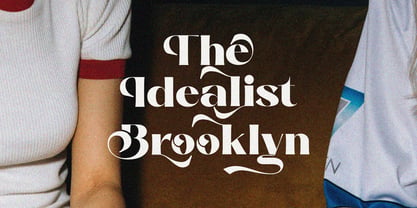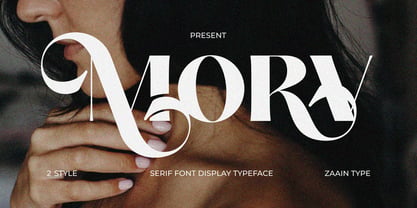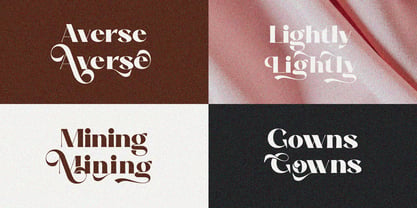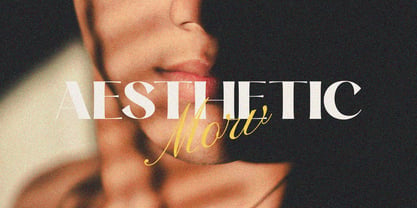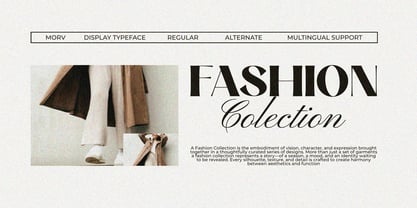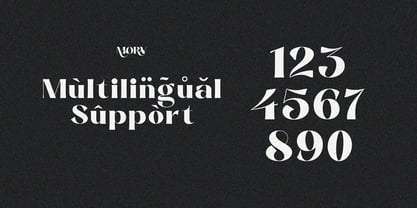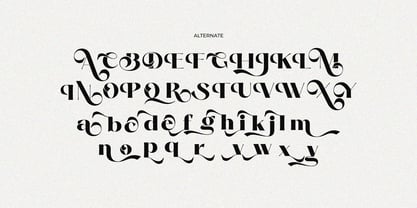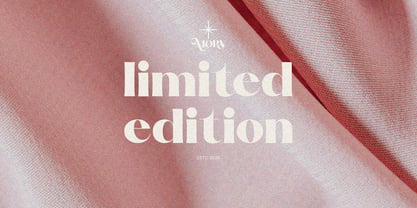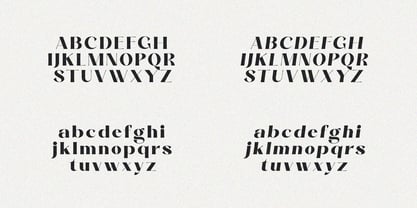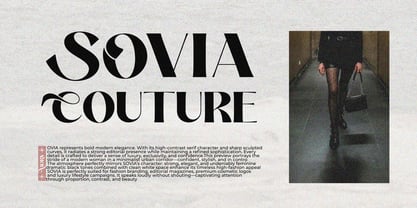
Morv
by Zaain Type
The Morv Font Family was designed by Ju Naen and published by Zaain Type. Morv contains 2 styles and family package options. More about this family
Morv is a serif typeface that blends classic firmness with a modern, elegant touch. Featuring balanced thick–thin contrast and refined, precise serif details, Morv delivers a strong, classy, and editorial impression in every composition. Its carefully crafted proportions make it stand out beautifully in headlines, premium branding, logos, and fashion designs—an ideal choice for visuals that feel sophisticated and full of character
Designers: Ju Naen
Current Foundry: Zaain Type